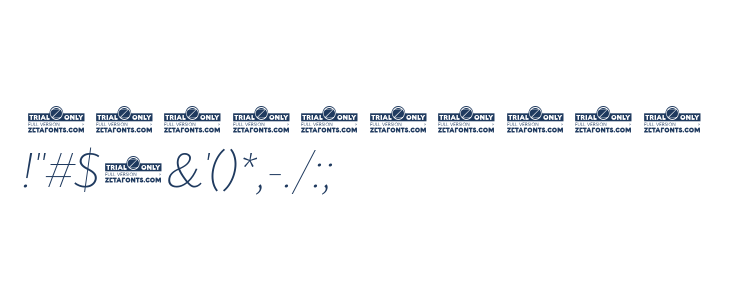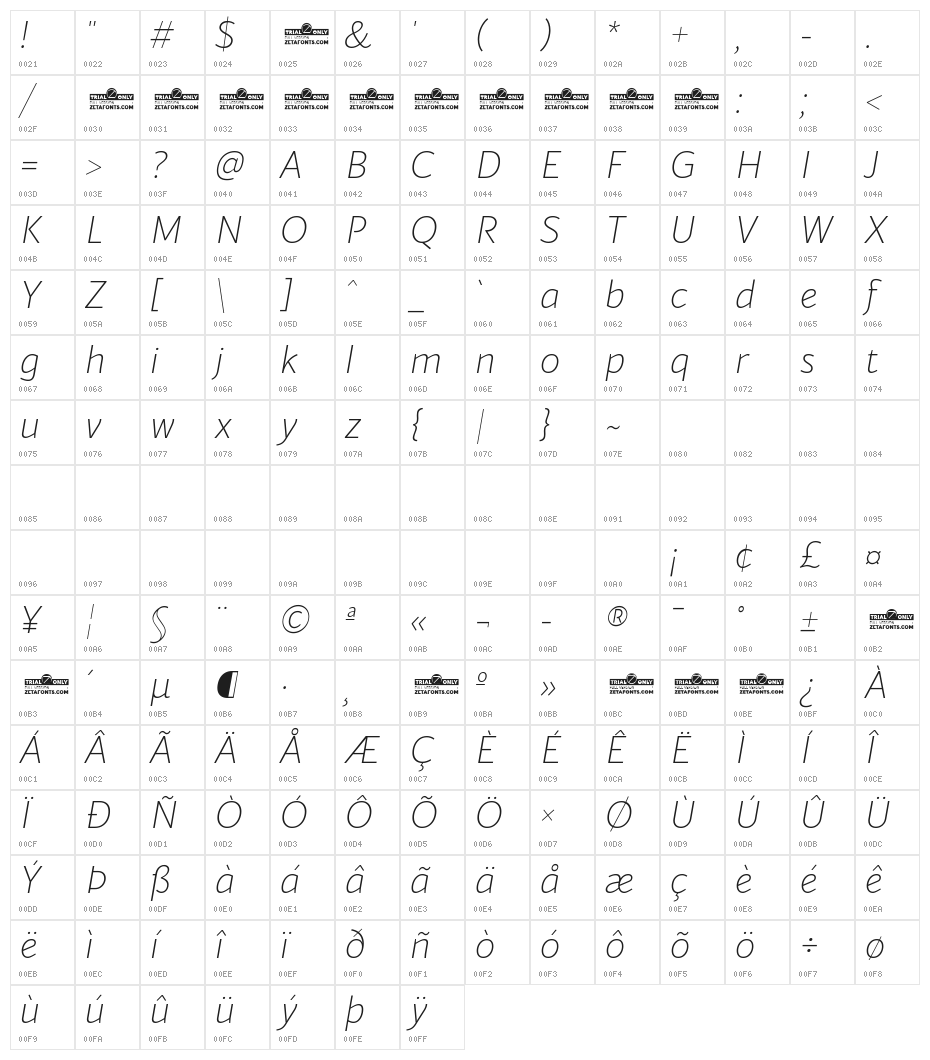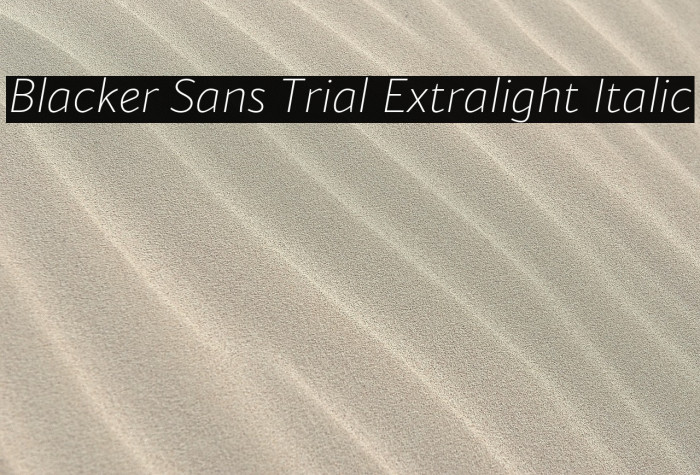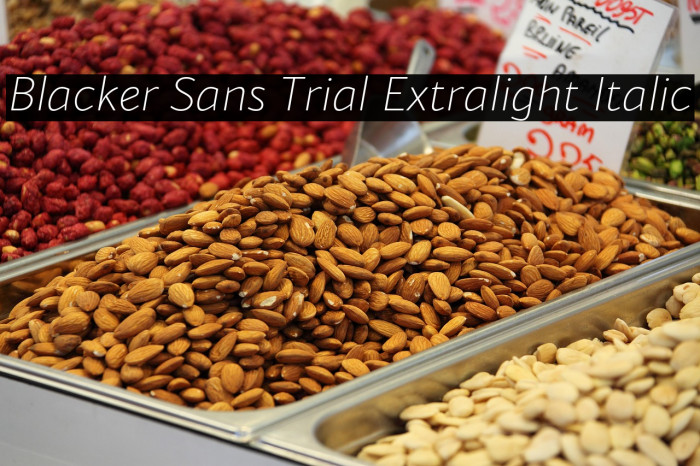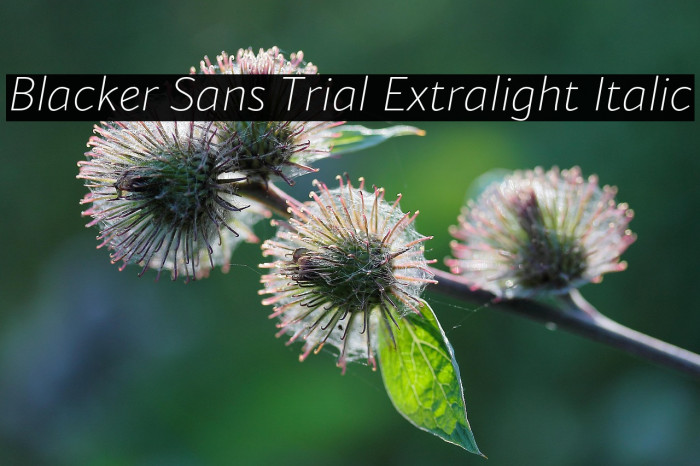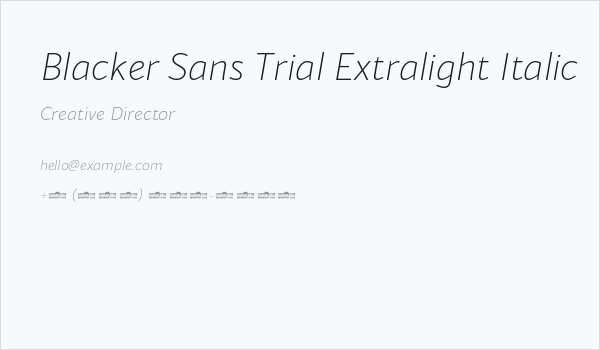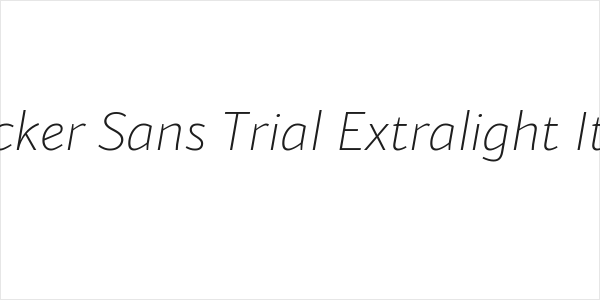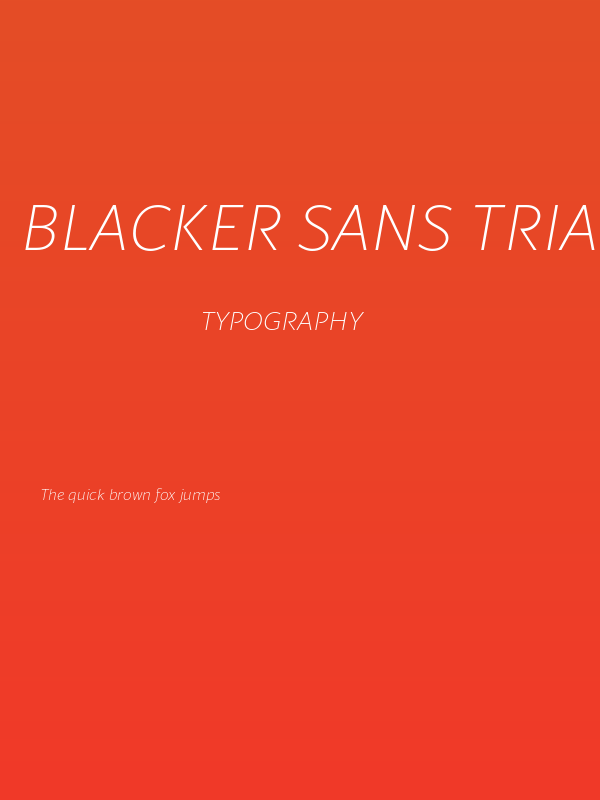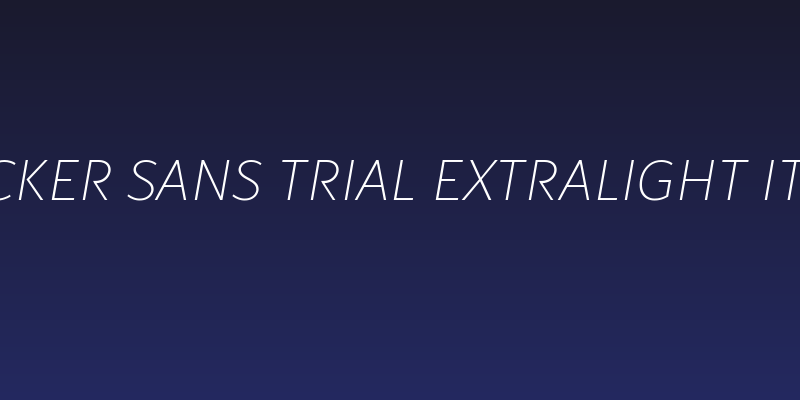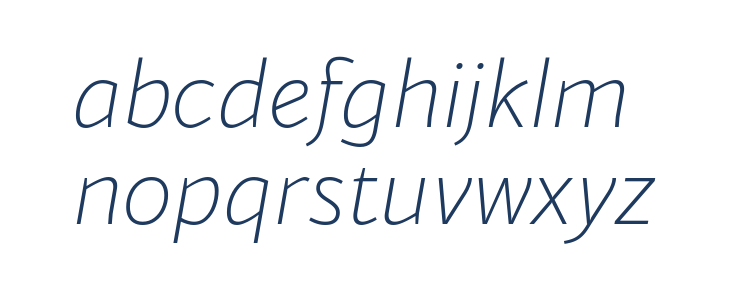
Blacker Sans Trial Extralight Italic Font
Blacker Sans Trial Extralight Italic Description
This font features a sleek and modern design with a clean, minimalist aesthetic. The characters are elegantly crafted with a slight slant, giving them a dynamic and sophisticated appearance. The thin strokes and smooth curves create a sense of fluidity and grace, making it ideal for contemporary design projects. The uppercase and lowercase letters maintain a consistent style, ensuring readability and visual harmony. The numerals and special characters are designed with the same attention to detail, providing a cohesive look across all elements.
Proposed ProjectsIdeal for branding, editorial design, websites, and modern advertising campaigns.